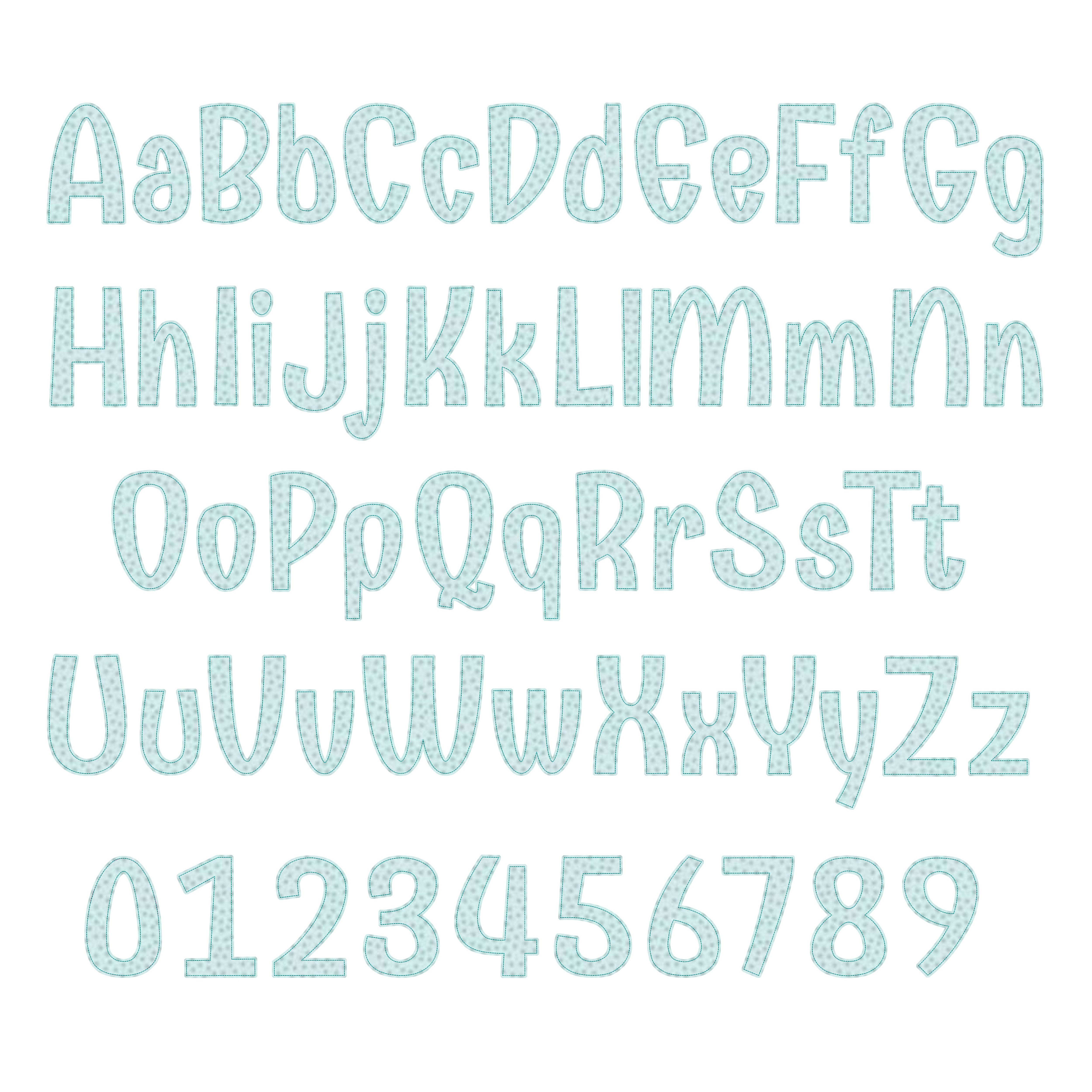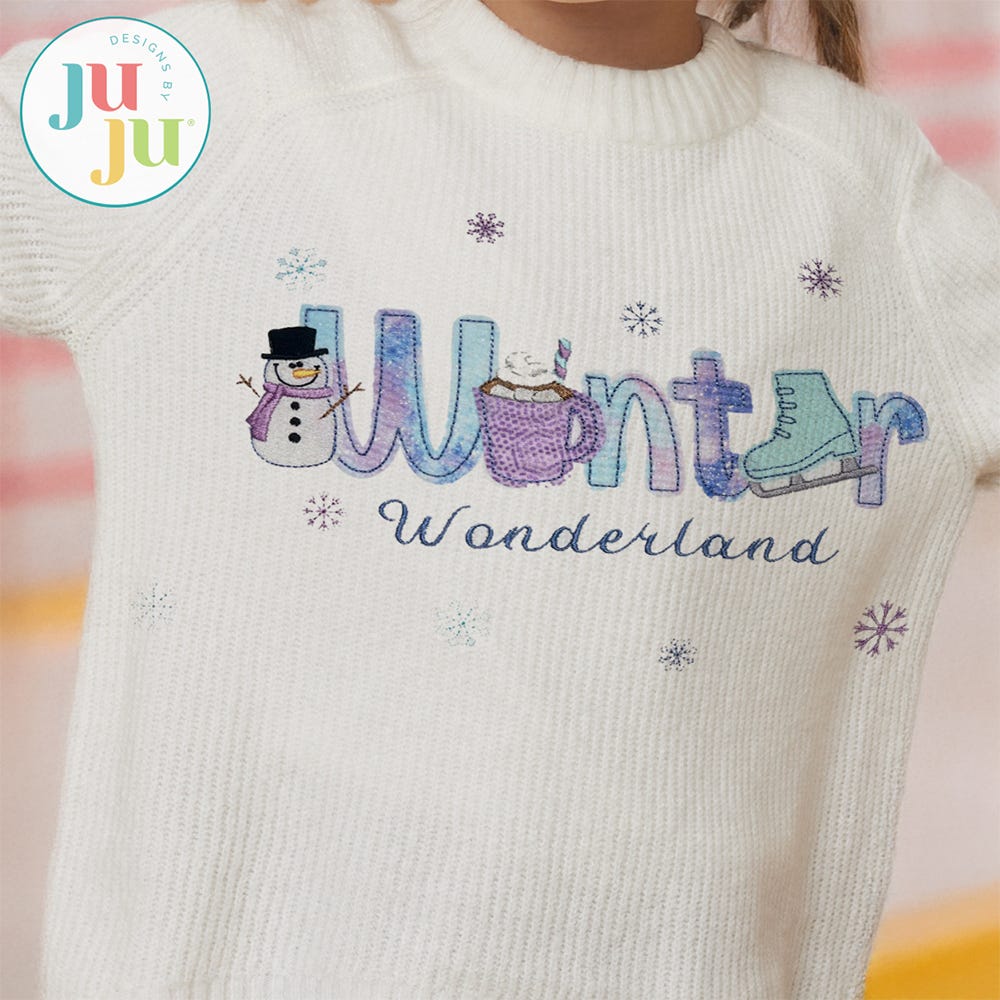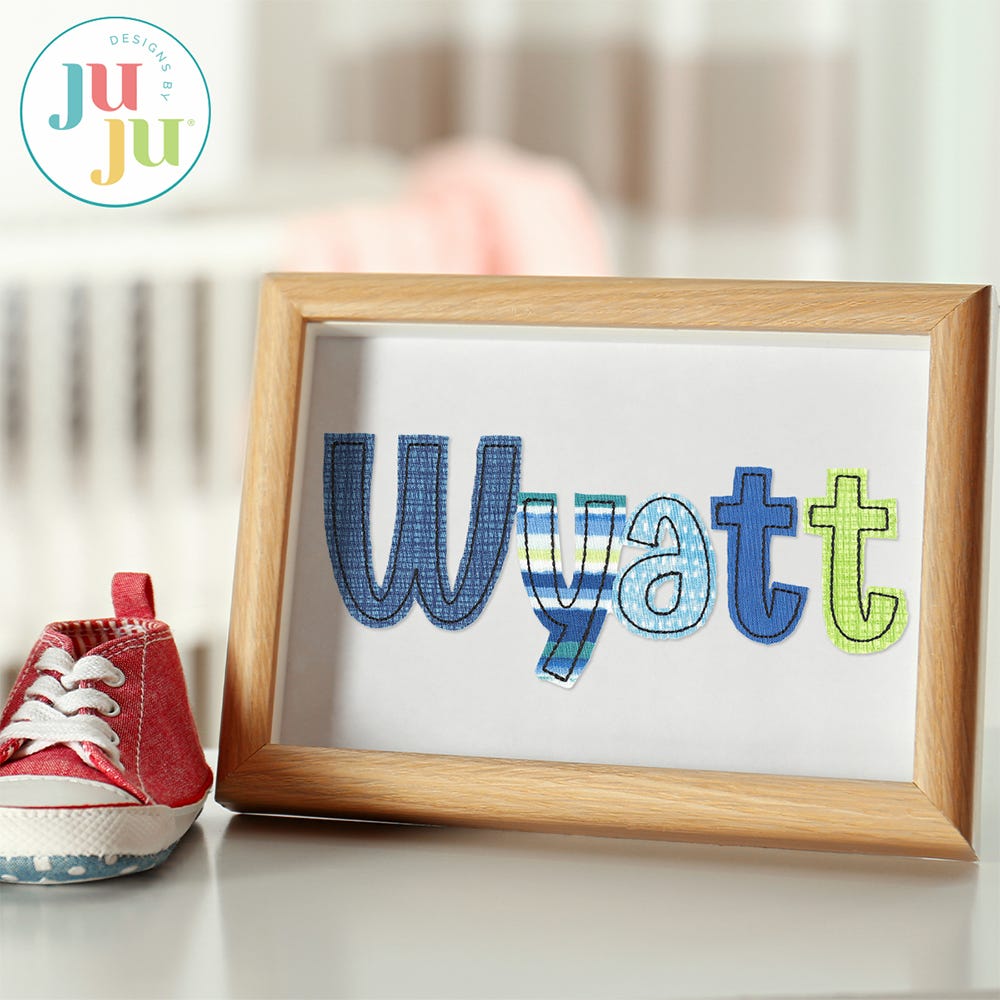
Emmy Doodle Bean Stitch Applique Embroidery Font
Introducing a fun new font with infinite possibilities! Emmy Doodle Bean Stitch Applique Alphabet includes capital and lowercase letters along with numbers in 9 sizes (2.5-inch, 3-inch, 3.5-inch, 4-inch, 4.5-inch, 5-inch, 5.5-inch, 6-inch, and 6.5-inch).
Sizing is based on the capital A and everything else is scaled to match. All individual files from the 2.5-inch, 3-inch, and 3.5-inch sizes fit in a 4x4 hoop except the 3.5-inch lowercase J and capital Q. Please click the Size and Stitch Counts button below the photos on this page for details.
For maximum stitch efficiency, each design file has only two colorstops: a single running stitch placement step, and a bean stitch step that serves as both the tackdown and finishing stitch. The applique fabric is trimmed after the design is complete. We recommend using a fusible product on the applique fabric and neatly trimming 1/8" outside the bean stitch for a polished look. (Alternative idea: layer with flannel, trim with a generous seam allowance, and rough up the edges for a raggy look.)
The sample photos demonstrate how you can replace letters with themed bean stitch appliques. We love the look of using black embroidery thread for all the bean stitch outlines!
The Winter sample uses designs from the Winter Alphabet Embellishment Kit and our Emaline font, both sold separately.